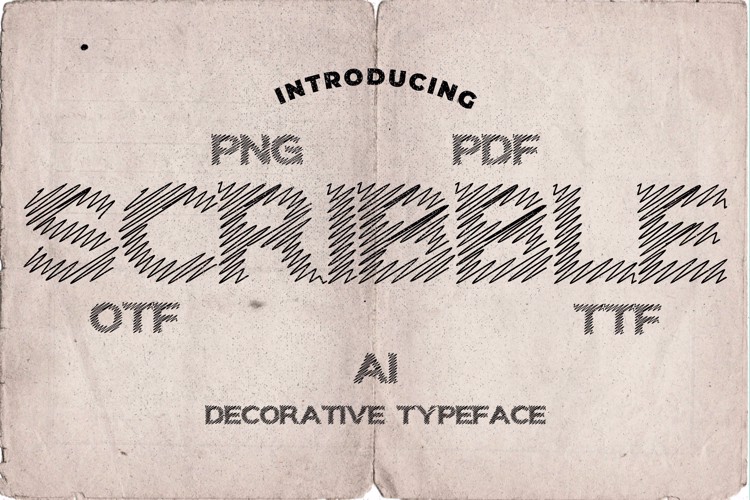
Scribble Font
๐จ Font Name: SCRIBBLE by Minimalist Art Studio
๐จ Font Description: A playful decorative sans serif with hand-drawn scribble charmโperfect for quirky headlines and expressive design.
โ Complete Latin set + multilingual diacritics
โ Alternates, stylistic sets & ligatures
โ Numbers, small caps, and extended punctuation
โ Bonus italics and family styles